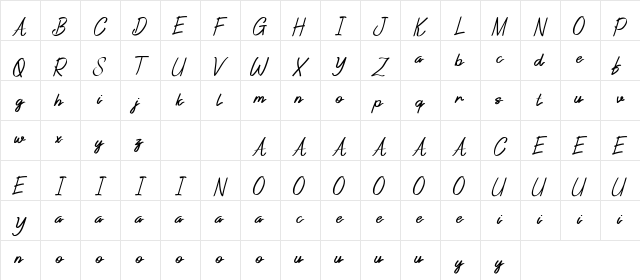
Reyburn Demo Script Regular
Design Context for Reyburn Demo Script
Reyburn Demo Script flows with the natural rhythm of handwritten lettering, making it ideal for designs that call for warmth and personal expression.
Font Pairing: Combine Reyburn Demo Script with a simple geometric sans for maximum contrast - the tension between flowing curves and clean structure is a classic typographic pairing.